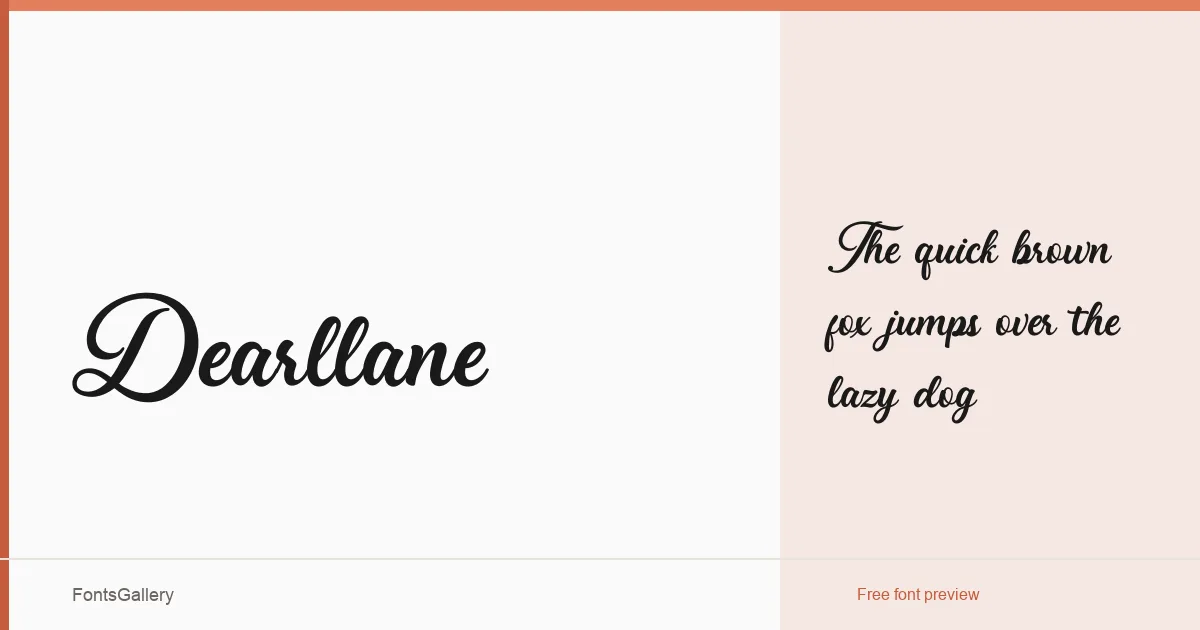
About Dearllane Font
Dearllane is a elegant script typeface crafted by Bery Arisandi and Basnistudio, brought to you by the Basnistudio foundry. It embodies a romantic and classic sensibility that makes it instantly captivating for a wide range of creative projects. With its graceful flowing letterforms, Dearllane strikes a refined balance between timeless charm and modern appeal.
As a script typeface, Dearllane features fluid, hand-crafted strokes that exude elegance and romance in every curve and connection. Its classic character lends a sense of sophistication, with letterforms that flow naturally from one to the next in a poised and graceful manner. The overall aesthetic is warm yet refined, evoking a sense of tradition and heartfelt beauty.
Dearllane shines brightest in applications such as wedding stationery, invitation cards, greeting cards, logos, and branding where an elegant and romantic tone is desired. Its classic script style makes it an especially compelling choice for luxury or boutique brand identities that seek a personal, handcrafted touch. For a harmonious typographic combination, pair Dearllane with Aresink for an all-script aesthetic, or with Helvetica for a clean, contemporary contrast.